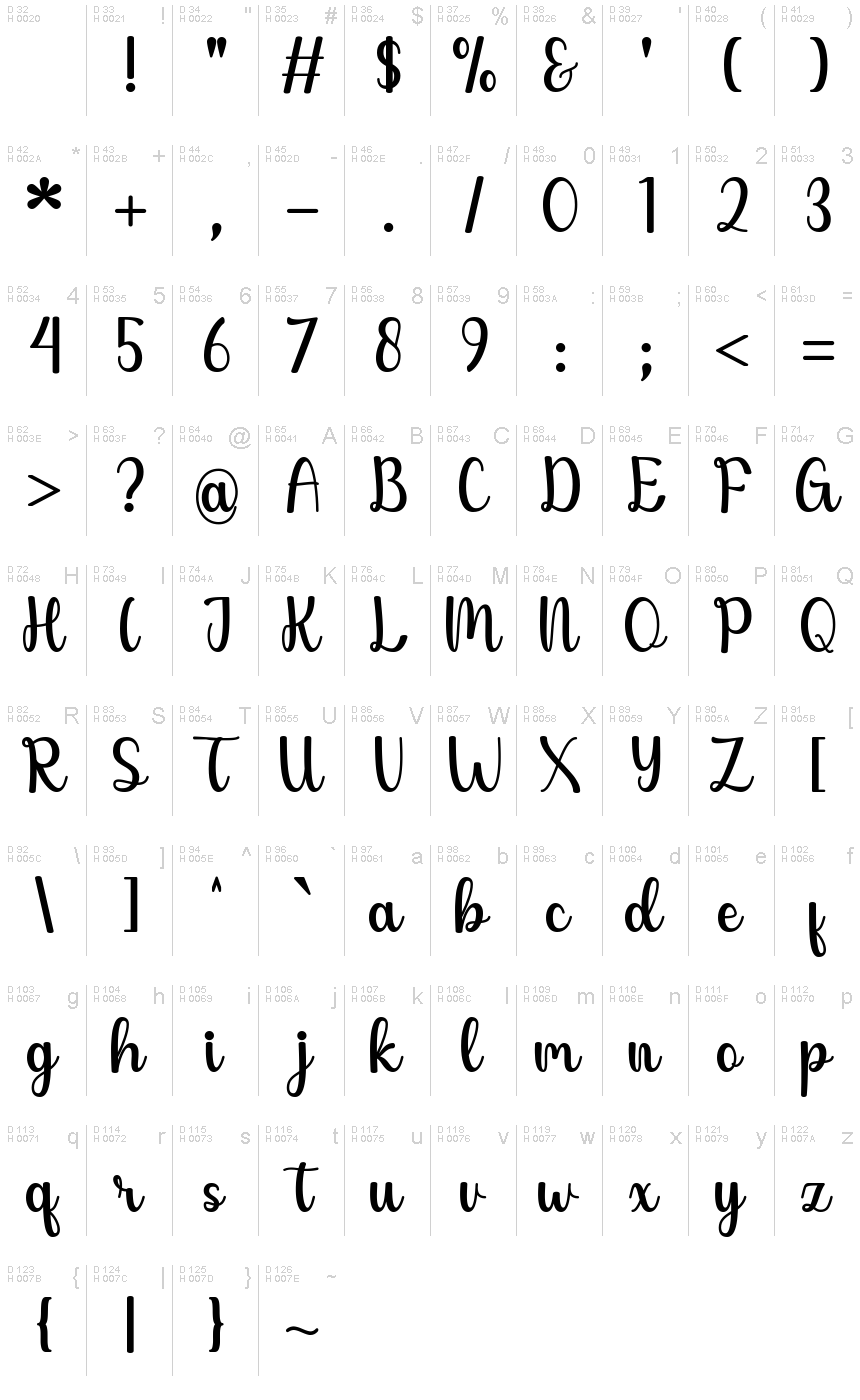
Melinda
Melinda, crafted by Hardiboy Design, exudes a personal touch with its handwritten style that mirrors the intimate feel of ink flowing across paper. Its gentle curves and casual elegance invite warmth to any project, offering a sense of authenticity and approachability.
This font captures the charm of personal correspondence, making it an excellent choice for invitations, greeting cards, and branding that seeks to establish a friendly and inviting atmosphere. Its aesthetic appeal lies in its ability to blend seamlessly into designs that require a human touch without overpowering other elements. Melinda's versatility ensures it can be used across various mediums, from digital graphics to print materials, wherever a touch of handcrafted personality is desired.